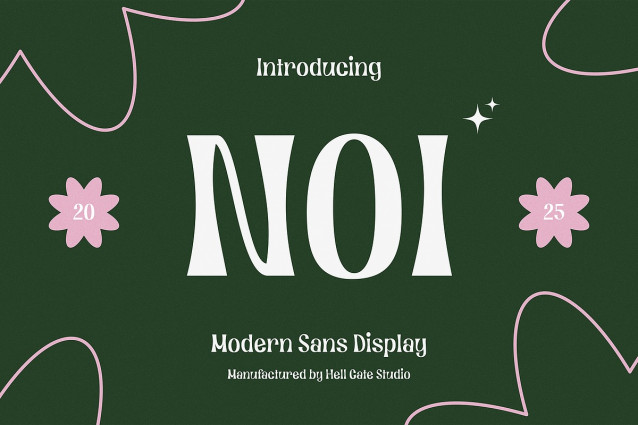
Noi Display Font
Noi Display Font – Modern Sans Display typeface is an elegant font with a smooth and attractive look. The versatility of this font makes for a user-friendly experience, allowing for easy editing of text and colors. Not to mention, this font boasts high rendering quality, giving it a more refined look. When downloading, you can see that the OTF file is included in the file.